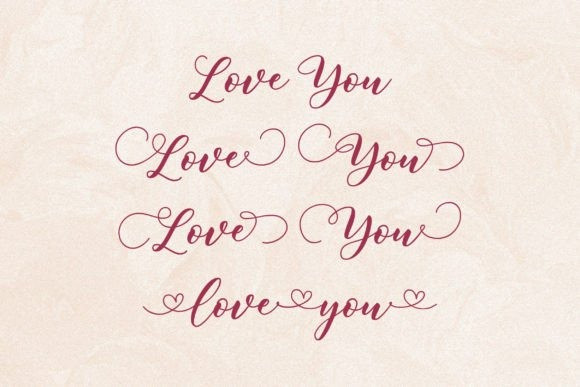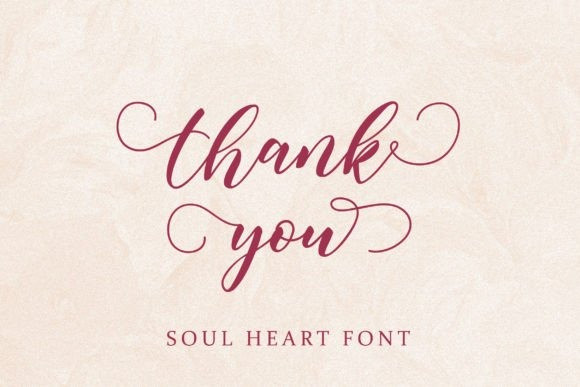
Soul Heart Font
Soul Heart is an enchanting handwritten font. This versatile script font has a wide spectrum of applications ranging from greeting cards to headlines and is guaranteed to add a romantic feel to your next project. Soul Heart is PUA encoded which means you can access all the glyphs and ligatures with ease!